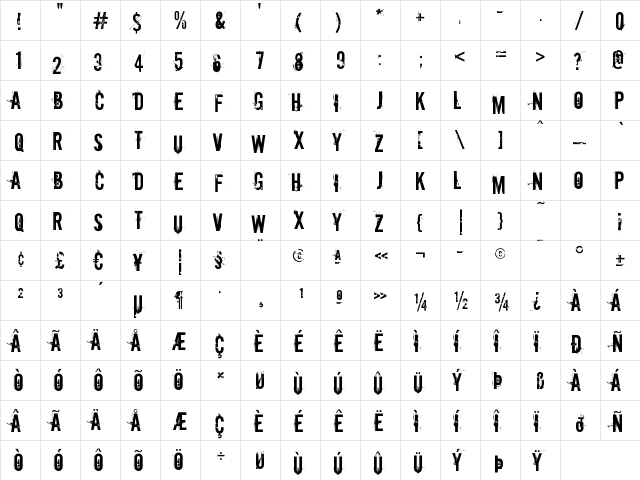
Downcome Regular Font Preview
Downcome Regular
Design Context for Downcome Typeface
Downcome is a composed and adaptable typeface that performs quietly and consistently across a wide range of design contexts.